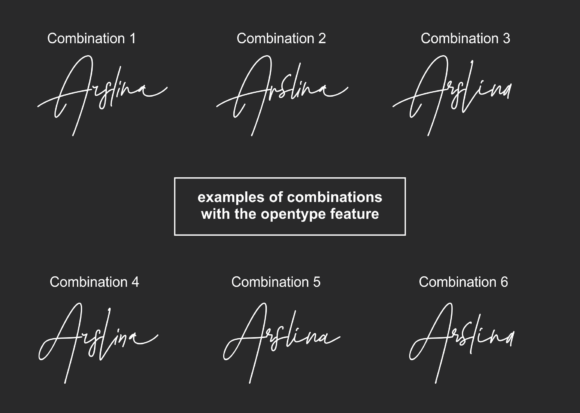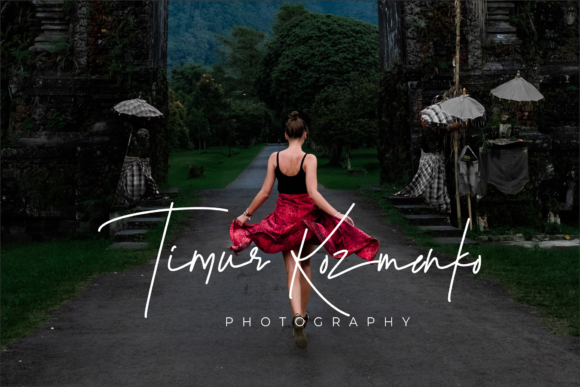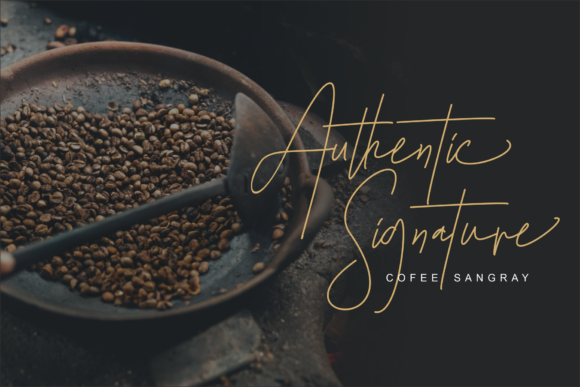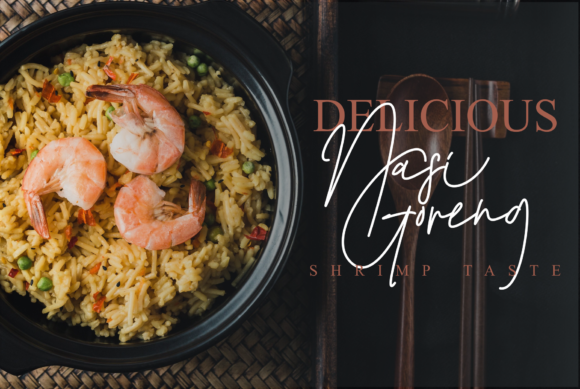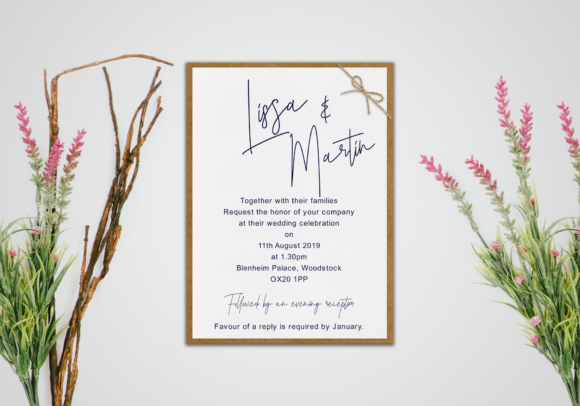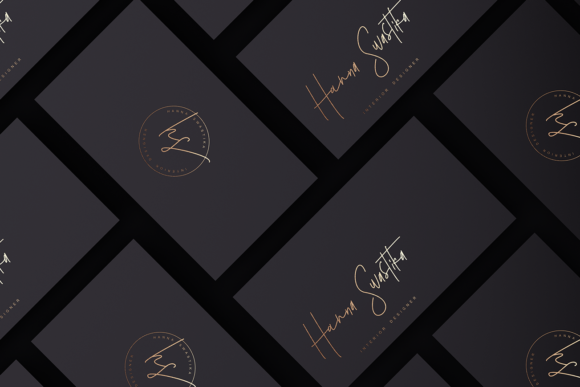
Introduction to Arslina Font
As designers, we’ve all been there – staring at a blank canvas, waiting for inspiration to strike. For some, it’s the perfect melody that sparks creativity; for others, it’s the discovery of a stunning design resource that sets the tone for a project. For us, it’s often the moment we stumble upon the perfect font, one that elevates our design from ordinary to extraordinary. And that’s exactly what happened when we found Arslina Font – a gorgeously light and charming script that left us breathless.
Arslina Font is more than just a pretty face; it’s a valuable asset for designers looking to add a touch of elegance to their branding projects, logos, wedding designs, and much more. Its high-quality design and transparent background make it an ideal choice for creative projects, and the best part? It’s available for free download, making it accessible to designers of all levels.
Key Features of Arslina Font
- Transparent background for seamless integration into various designs
- Includes 5 styles, each with a unique character and design flair
Honest Review: Arslina Font
As a designer, I’m always on the lookout for high-quality design resources that can elevate my creative projects. The Arslina Font is one such resource that caught my attention. Let’s dive in and see what it has to offer.
- ✨ The Arslina Font has a beautiful, elegant design that is perfect for titles and headings.
- ✨ The font supports a wide range of languages, making it a great option for global projects.
- ✨ The transparent background feature is a nice touch, allowing for seamless integration with backgrounds.
- ⚠️ The font only comes in one weight, which may limit its use in certain projects.
- ⚠️ Some users may find the font to be too elegant or formal for certain designs.
Overall impression: I’m impressed with the Arslina Font’s design and features. While it may have some limitations, it’s still a valuable addition to any designer’s toolkit. With its free download option and transparent background feature, it’s definitely worth considering for your next creative project.
The Arslina Font is a high-quality design resource ideal for various creative projects. It offers a unique style and can be used for both personal and professional projects.
Tips for Getting the Most Out of Arslina Font
Use the Arslina Font in combination with a transparent background to create a unique and eye-catching design.
The Arslina Font is ideal for various creative projects, including branding, logos, and marketing materials. It is also suitable for use in digital products, such as e-books and infographics.